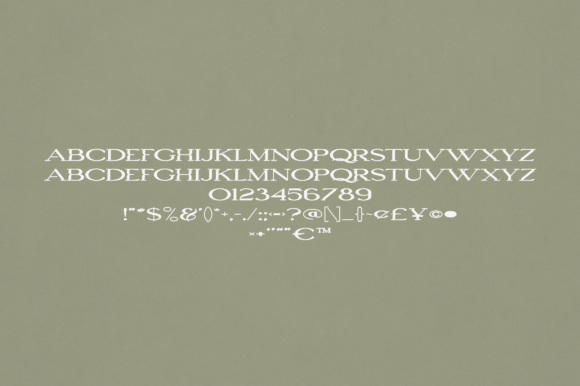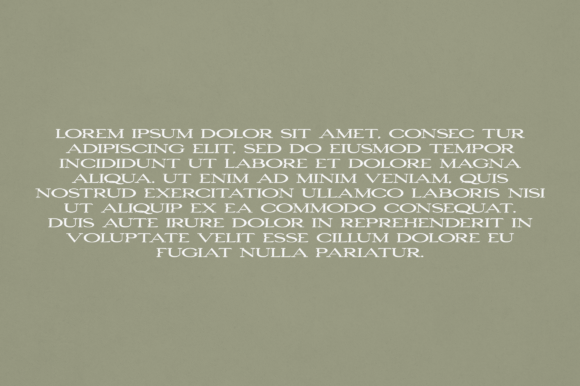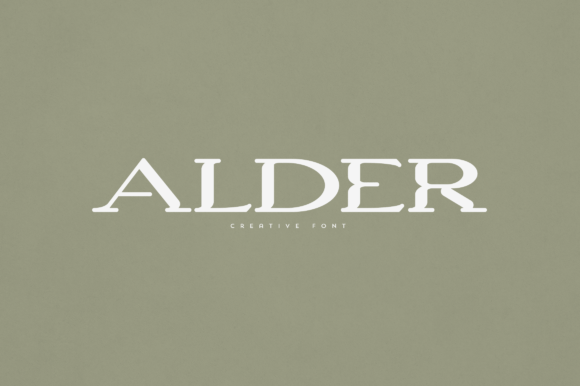
Discover the Elegance of Alder Font: Elevate Your Designs with Versatility and Style
In the world of typography, fonts play a crucial role in conveying messages, evoking emotions, and creating lasting impressions. For designers and crafters seeking to add a touch of elegance and uniqueness to their projects, the Alder Font is an exceptional choice. This versatile font is designed to enchant every logo, branding, headline, or plain text, making it a perfect fit for a wide range of applications.
The Unique Charm of Alder Font
Alder Font stands out with its elegant and sophisticated design. Its unique charm lies in its ability to blend seamlessly into various design contexts, from luxury branding to casual, creative projects. Whether you’re working on a logo, a magazine header, product packaging, or simply looking to add a stylish text overlay to a background image, Alder Font brings a level of refinement and class that is hard to match.
One of the key advantages of Alder Font is its versatility. It’s a font that can be used across multiple platforms and design projects, including:
• Branding Projects: Create a lasting impression with a unique and elegant font that sets your brand apart.
• Home-Ware Designs: Add a touch of sophistication to your home-ware designs, making them stand out in a crowded market.
• Product Packaging: Elevate your product packaging with a stylish font that enhances the overall aesthetic and appeal.
• Magazine Headers: Make your magazine headers pop with a font that is both elegant and eye-catching.
• Text Overlays: Use Alder Font as a stylish text overlay on any background image, adding depth and interest to your designs.
Why Choose Alder Font?
There are several reasons why designers and crafters are choosing Alder Font for their projects:
• Elegance: Alder Font brings an unparalleled level of elegance to any design, making it perfect for projects that require a sophisticated look.
• Versatility: Its versatility means it can be used across a wide range of projects, from professional branding to personal craft projects.
• Uniqueness: With Alder Font, you can ensure your designs stand out from the crowd, offering a unique look that captures attention.
Tips for Using Alder Font Effectively
To get the most out of Alder Font, consider the following tips:
• Pair with Complementary Fonts: For maximum impact, pair Alder Font with fonts that complement its elegance, creating a harmonious and visually appealing design.
• Experiment with Sizes and Colors: Don’t be afraid to experiment with different sizes and colors to find the perfect combination that suits your design.
• Consider the Context: Always consider the context in which your design will be viewed, adjusting the font style and size accordingly to ensure maximum readability and impact.
Alder Font is a game-changer for designers and crafters looking to elevate their projects with a touch of elegance and uniqueness. Its versatility, combined with its sophisticated design, makes it an ideal choice for a wide range of applications. Whether you’re working on a professional branding project or a personal craft, Alder Font is sure to enchant and inspire, helping you to create designs that truly stand out.
Embrace the elegance and versatility of Alder Font in your next design project. With its unique charm and wide range of applications, it’s an excellent addition to any designer’s toolkit.